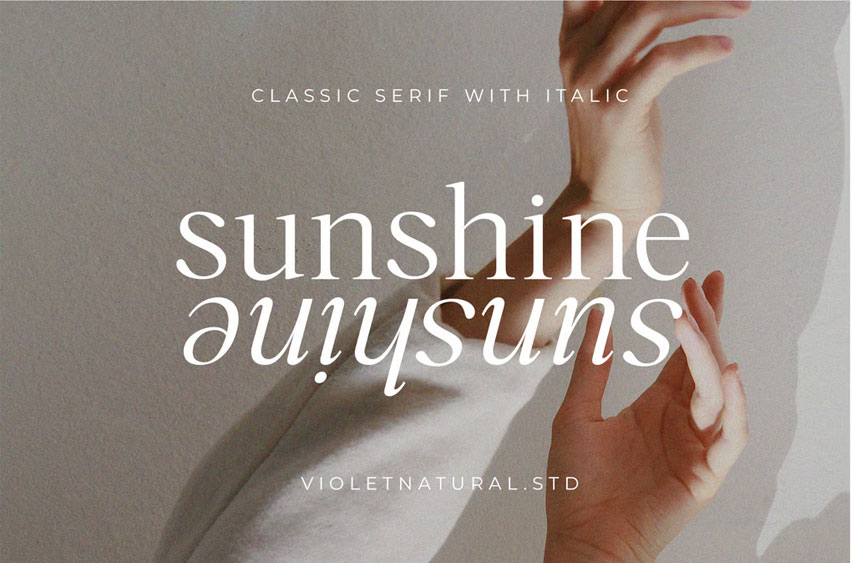
Sunshine Serif Font
Sunshine Serif Font with the name sunsine which has a classic and elegant style and uses regular and italic style in the letters.
This font is suitable for application in various media, be it print or digital.